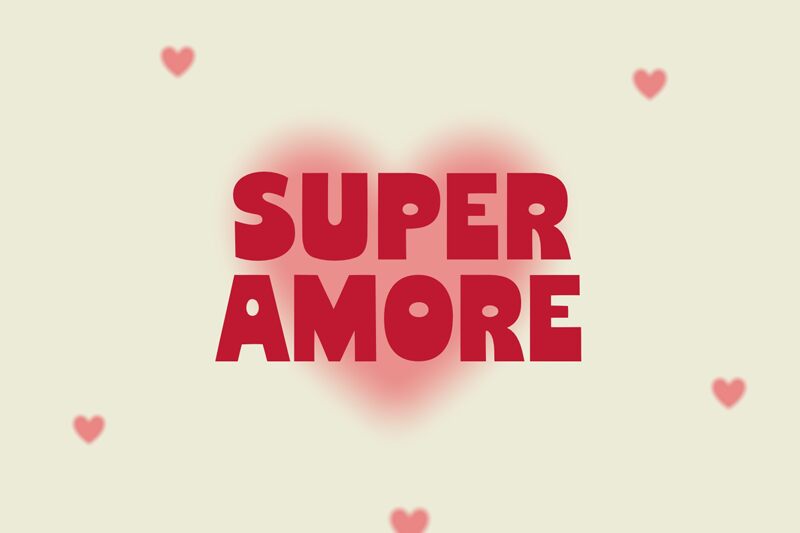
Super Amore Regular
Super Amore font by fsuarez913 is a free groovy display typeface that turns any word into a bold, huggable statement. Its chunky, rounded letters feel soft and puffy, like they’ve been inflated just to grab attention, while the tight rhythm keeps big titles compact and punchy. The subtle 70s flair gives it a nostalgic warmth without feeling stuck in the past.
Using Super Amore, you can instantly energize poster headlines, playful logos, kids’ book covers, Valentine’s promos, merch graphics, and social media campaigns. This free font shines when used large, where its plump curves and solid weight can really breathe. Pair it with a clean geometric sans for body text and you’ll get a fun, contemporary contrast that keeps layouts readable while letting Super Amore do the loud, lovable talking.